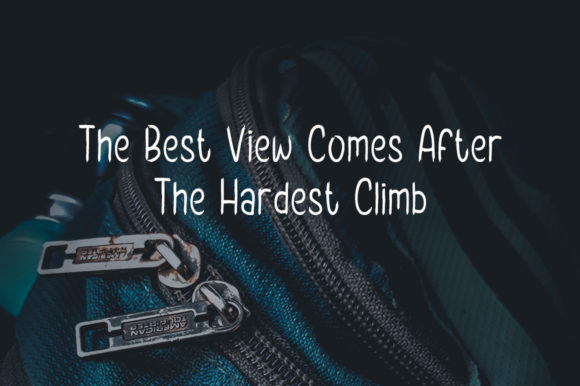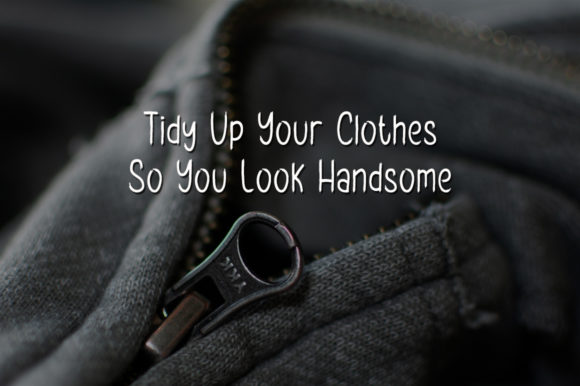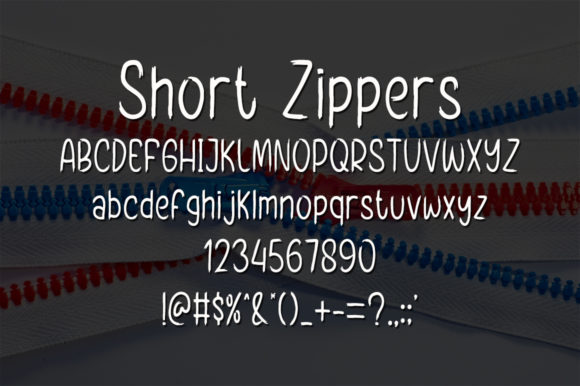
Introduction to Short Zippers Font
Have you ever stared at a blank canvas, wondering which font would bring your creative project to life? For designers, finding the perfect font can be a daunting task, especially when it comes to unique and high-quality options. That’s where the Short Zippers Font comes in – a simple yet adorable handwritten font that’s sure to elevate your designs.
Imagine adding a touch of whimsy to your next design project with a font that’s both free to download and boasts a transparent background, making it the perfect design resource for any creative endeavor. Whether you’re working on a branding project, creating digital art, or designing a social media campaign, the Short Zippers Font is the perfect addition to your toolkit.
Key Features of Short Zippers Font
- High-quality design for creative projects, ideal for fashion, lifestyle, and beauty brands.
- Features a transparent background, allowing for easy customization and integration into various designs.
- Unique, modern design with short zippers that add a touch of whimsy and playfulness to any project.
- Perfect for use in digital and print media, including social media graphics, logos, and advertising materials.
Honest Review: Short Zippers Font
I recently stumbled upon the Short Zippers Font while searching for a unique design resource to enhance my creative project. The font has a fun, quirky vibe that immediately caught my attention.
What works well about this font is its high quality design and the variety of styles it offers. The font is available for a free download, making it an excellent addition to any design project. I also appreciate the transparent background, which allows for seamless integration with different design elements.
- ✨ Unique and playful design style
- ✨ High quality and detailed fonts
- ✨ Transparent background for easy integration
While the Short Zippers Font is a great addition to any design project, I do have a few minor criticisms. The font can be a bit overused in some designs, and the limited character set may not be suitable for longer text passages. However, these limitations are relatively minor and do not detract from the overall appeal of the font.
Overall, I am impressed with the Short Zippers Font and would highly recommend it to designers looking for a fun and creative way to add some personality to their projects.
Experiment with different font sizes, colors, and styles to create unique and eye-catching designs. Use the Short Zippers Font in combination with other design resources, such as images and graphics, to create visually appealing projects.
The Short Zippers Font is perfect for a variety of creative projects, including logo designs, social media graphics, and marketing materials. Its high-quality design and transparent background make it a valuable resource for designers and non-designers alike.
Yes, you are free to use Short Zippers Font for both personal and commercial projects. However, please note that the font is for personal use only and should not be redistributed or sold as your own.
Does Short Zippers Font have a transparent background?
Yes, Short Zippers Font features a transparent background, allowing you to easily layer it over other design elements without any unwanted background noise. This makes it an ideal choice for creative projects that require a clean and minimalist aesthetic.